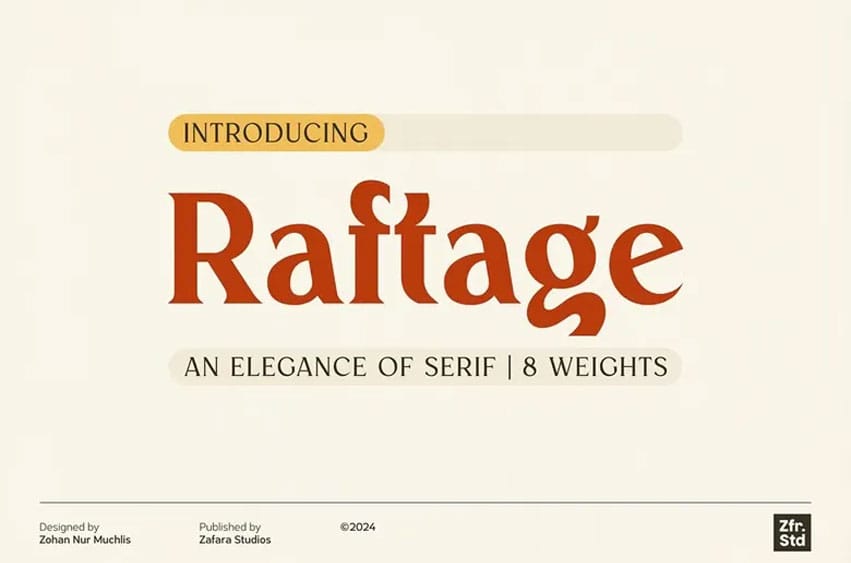
Raftage Font is an intellectual and flexible serif font family that is created with exceptional clarity. With its generally classic serif styling that has slightly sharp ends, Raftage is elegant. Coming in a range of eight weights, it effectively meets the requirements of various designs for headlines and titles as well as body text and branding objects.
Raftage’s clean and professional look and feel, coupled with its clear legal stature, make it suitable for use in several print and online projects.